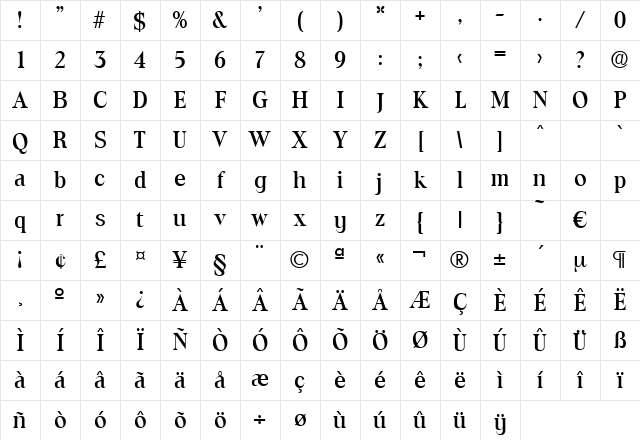
Toledo-Medium Regular Free Font
Toledo-Medium Regular
Design Context for Toledo-Medium
Toledo-Medium is a composed and adaptable typeface that performs quietly and consistently across a wide range of design contexts.